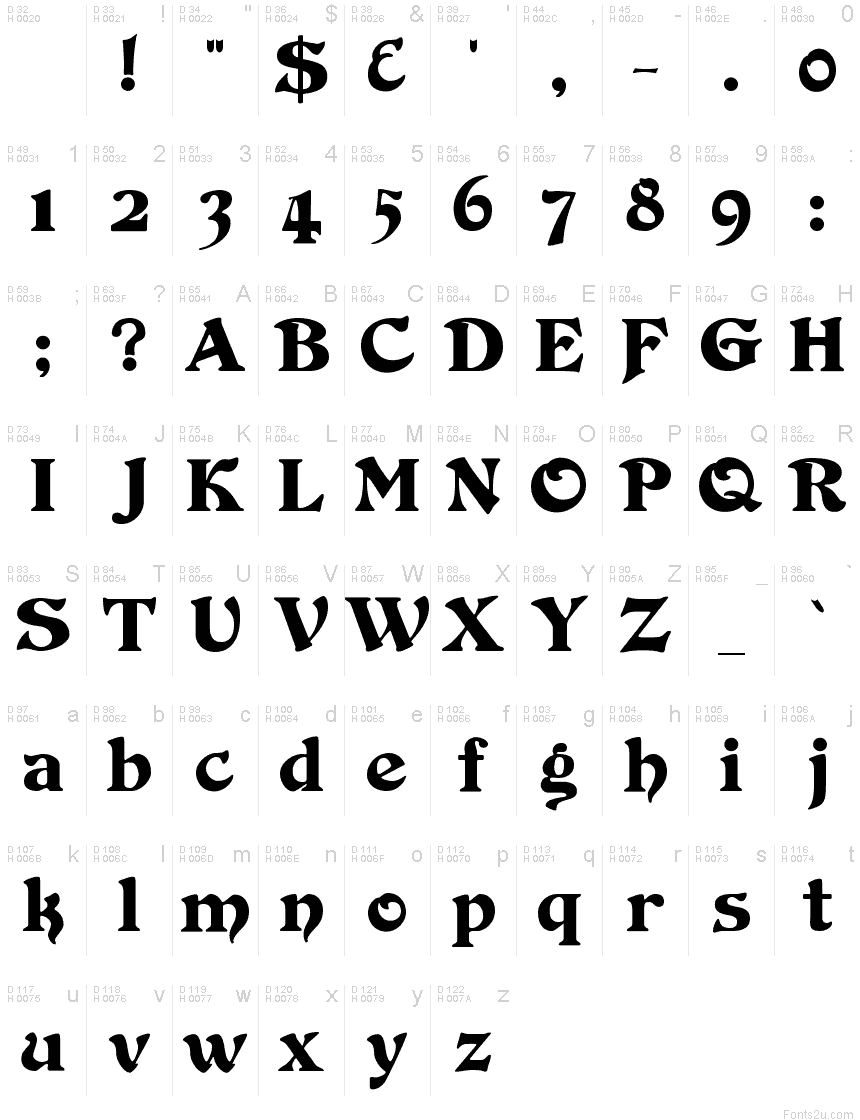
Duvall
Duvall font by PJL is a free retro display typeface with the swagger of old sign-painted logos and book covers. Its chunky, inky curves and snug spacing give every word a rolling, theatrical rhythm, while the soft, rounded serifs keep it friendly rather than stiff. The letters feel almost hand-carved-bold, dark shapes with just enough quirks to catch the eye without turning gimmicky.
Using Duvall, headlines instantly gain that vintage, showcard presence that’s hard to fake with modern sans fonts. This free font works beautifully for posters, retro branding, packaging, book covers, event titles, and bold social graphics. Set it large to let those sweeping forms breathe, and pair it with a clean, neutral sans serif for body text to let Duvall handle all the character and charm.